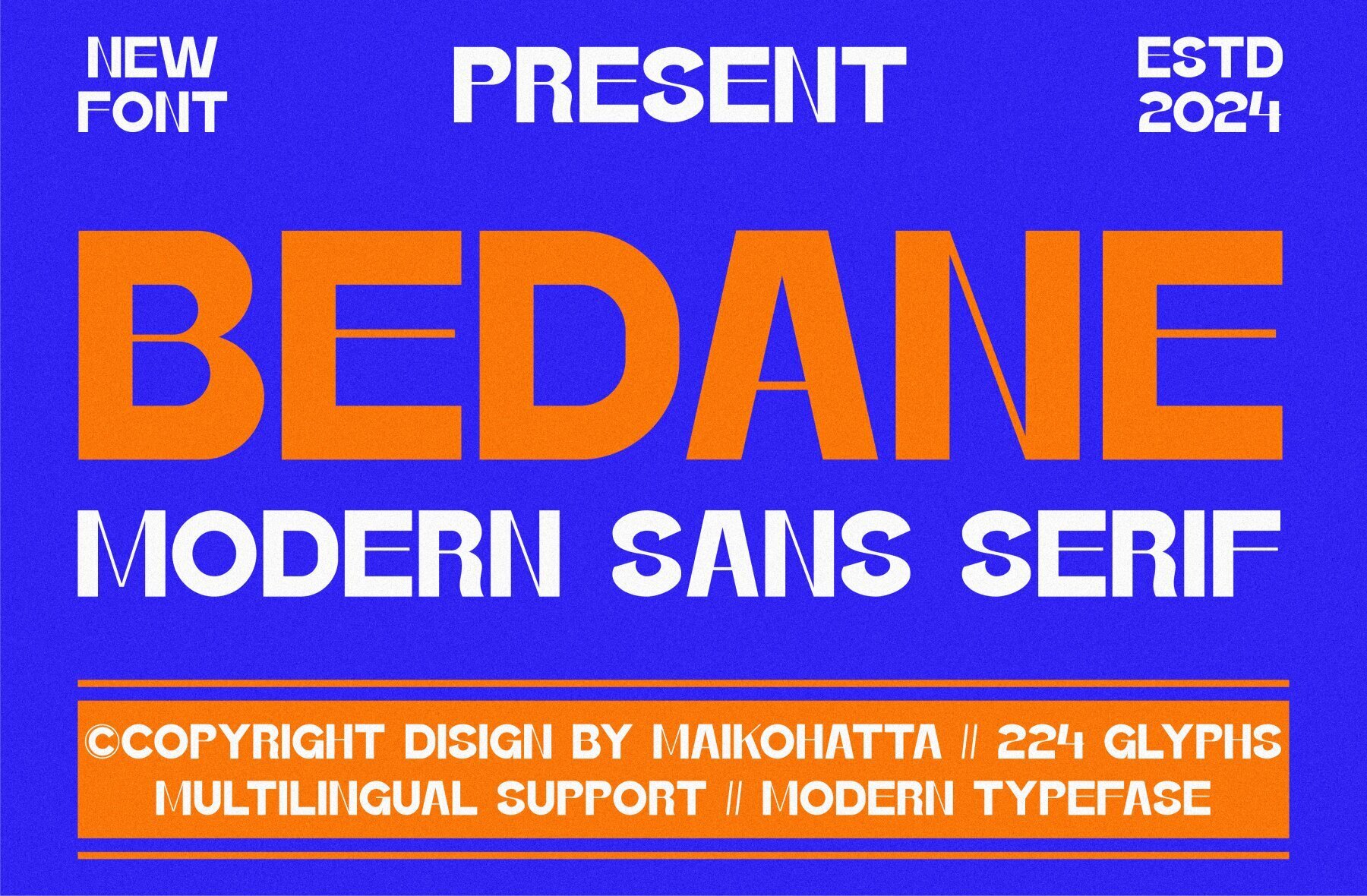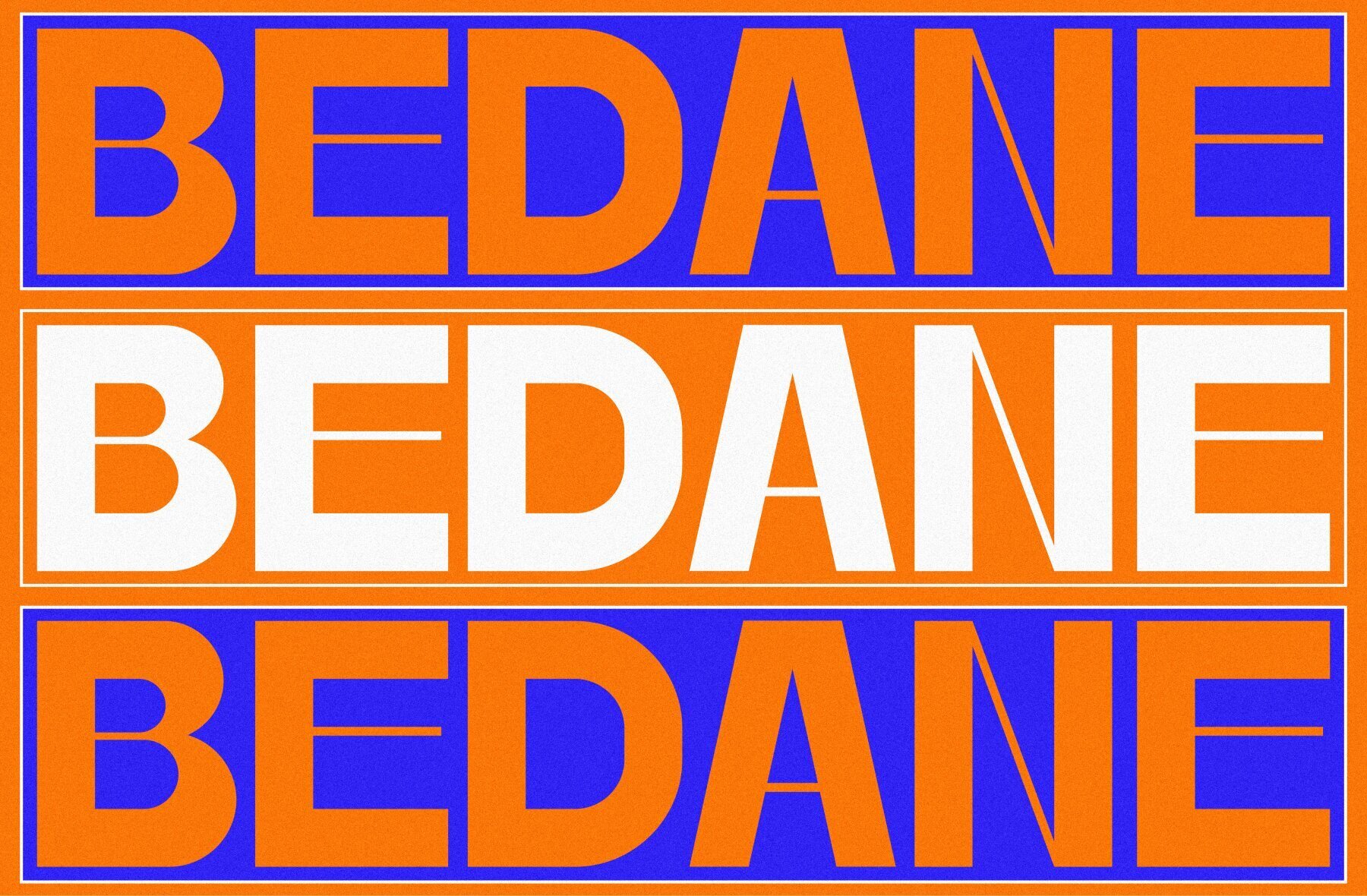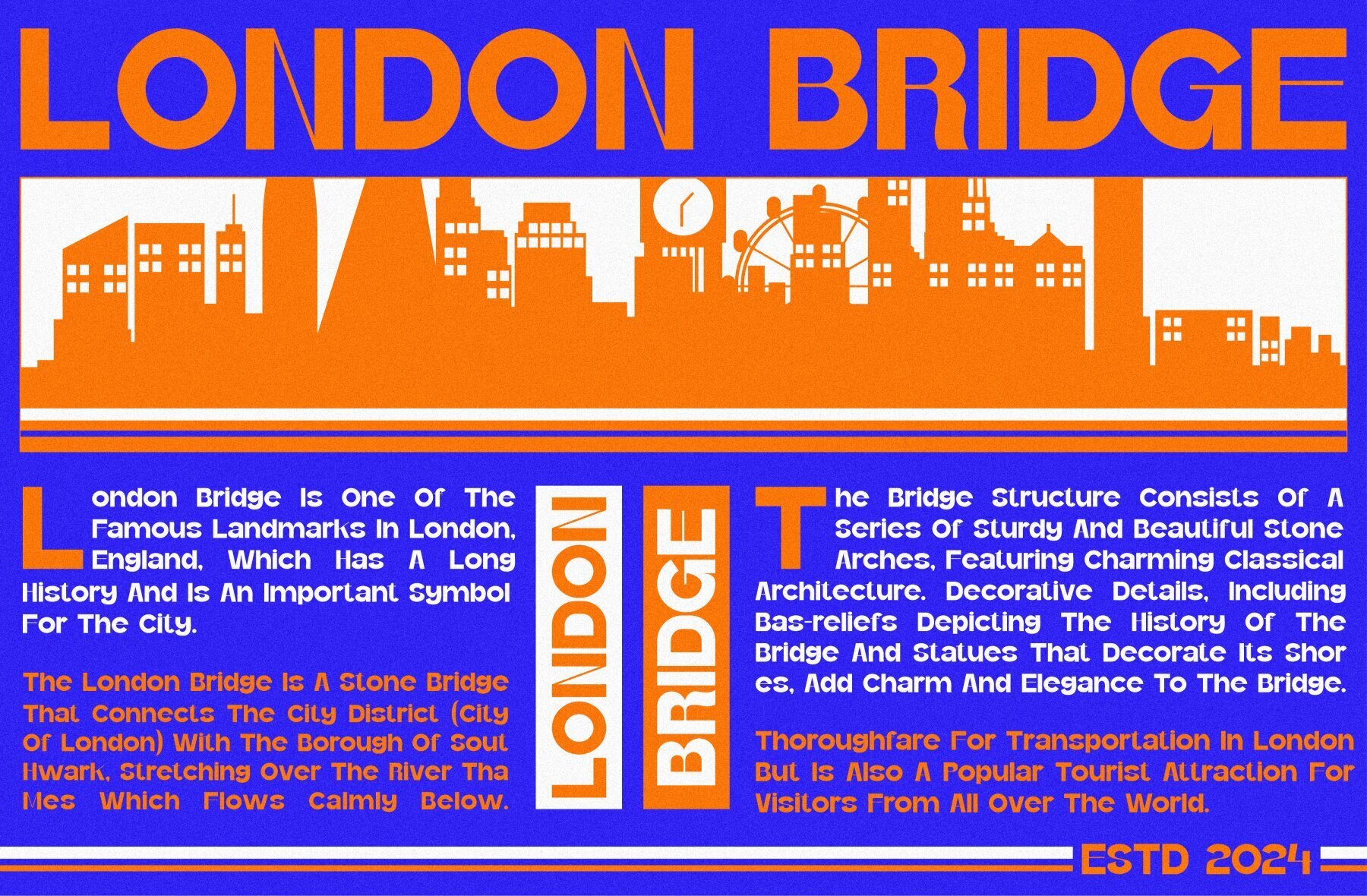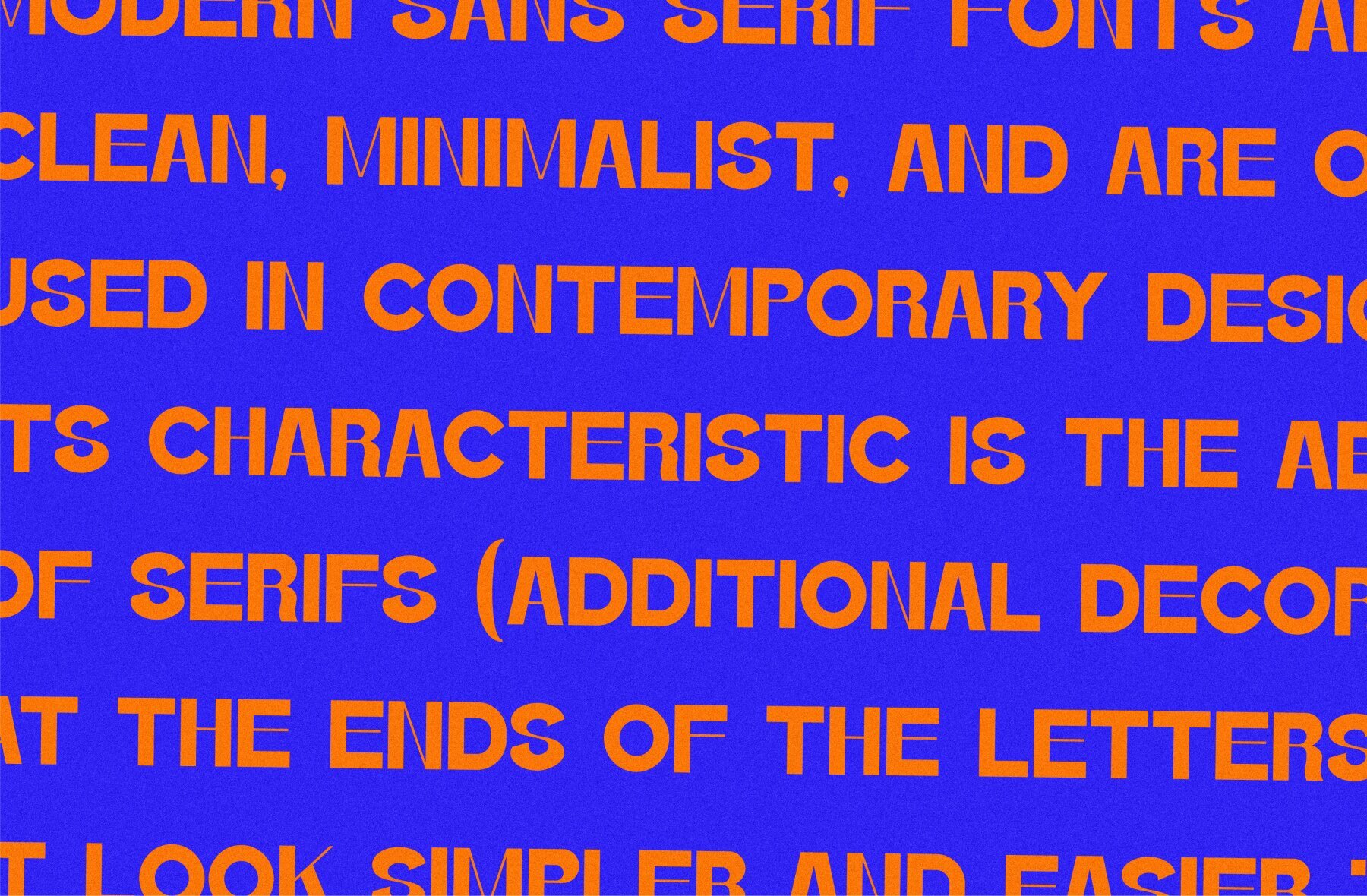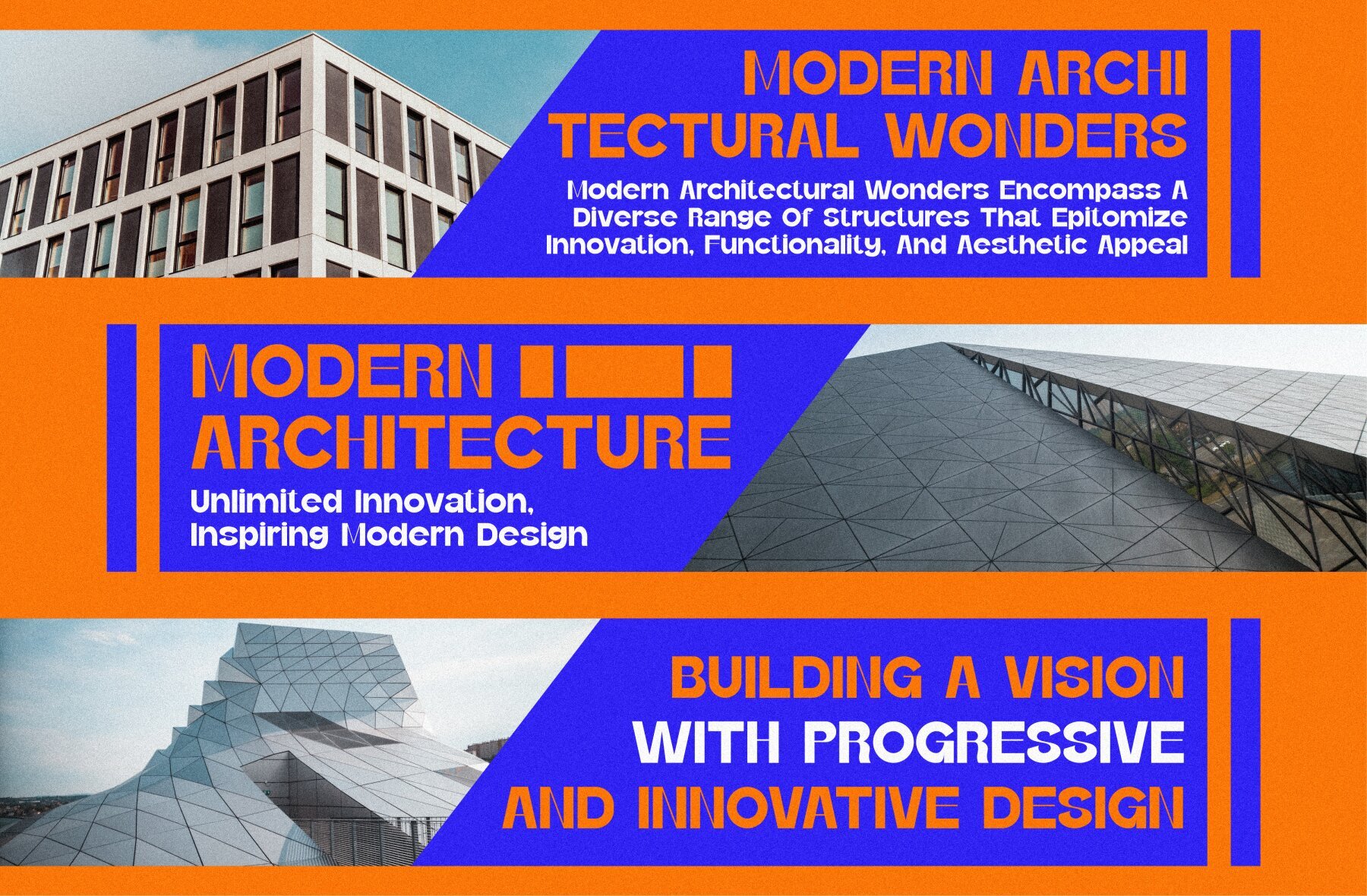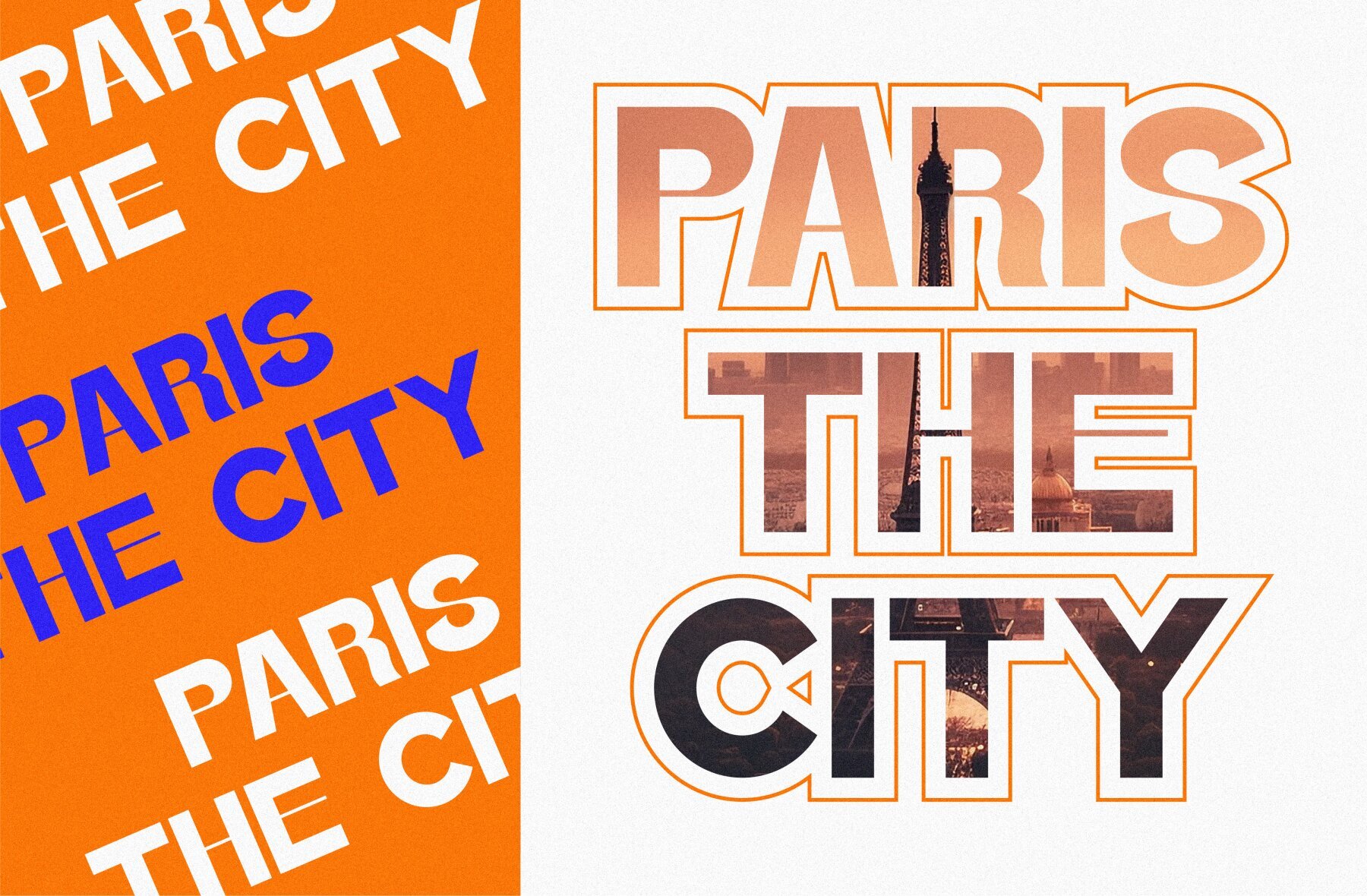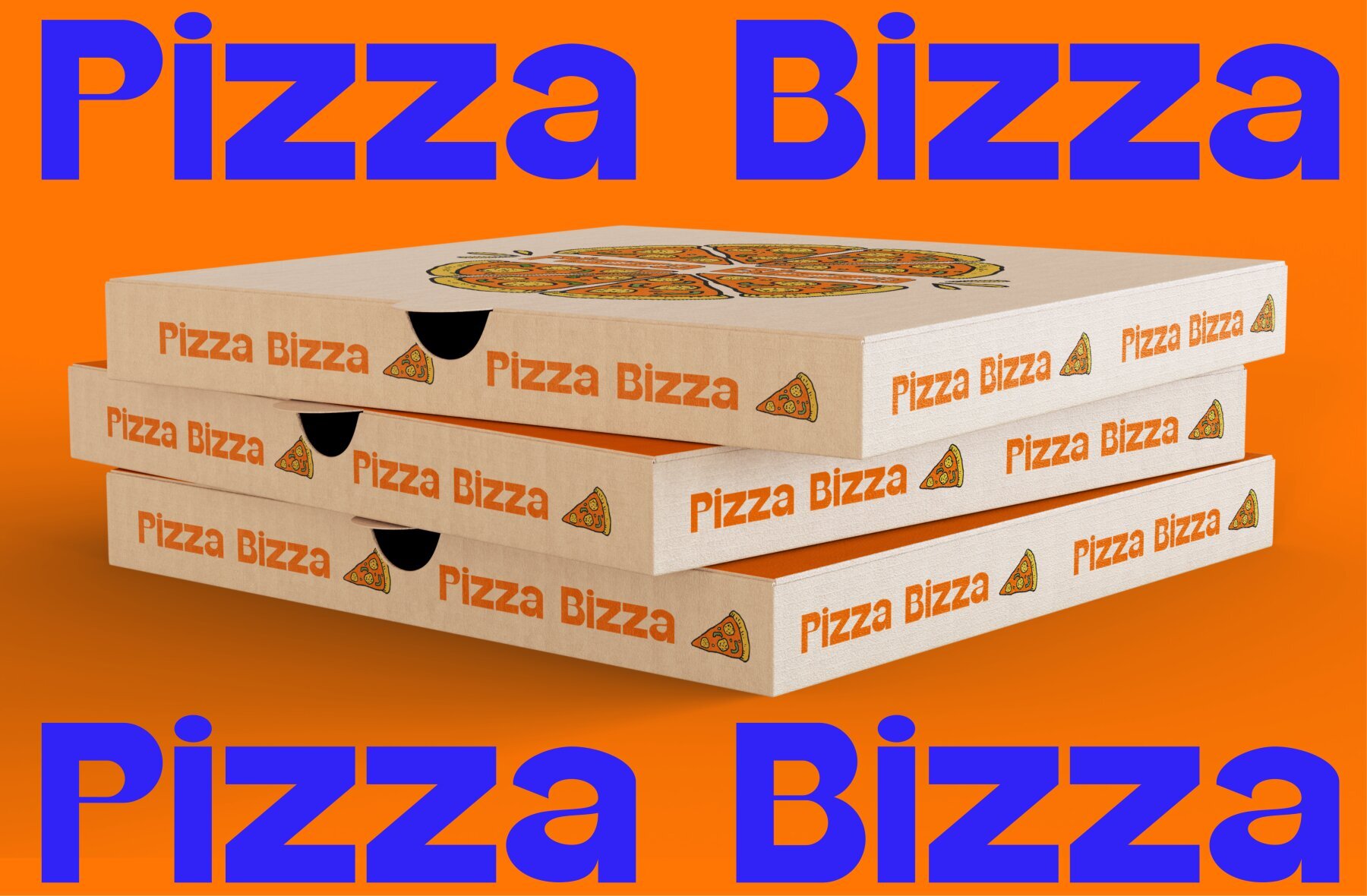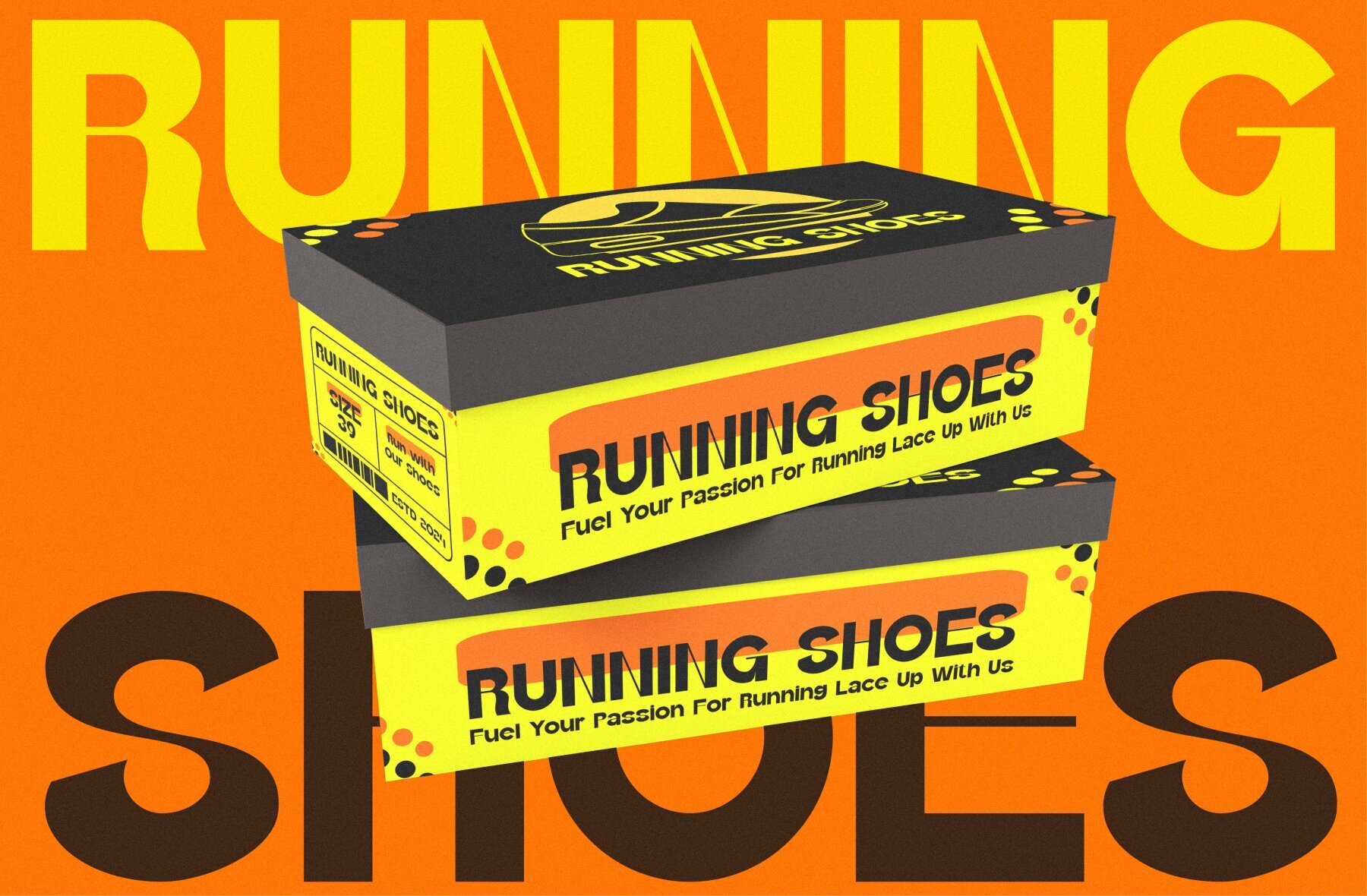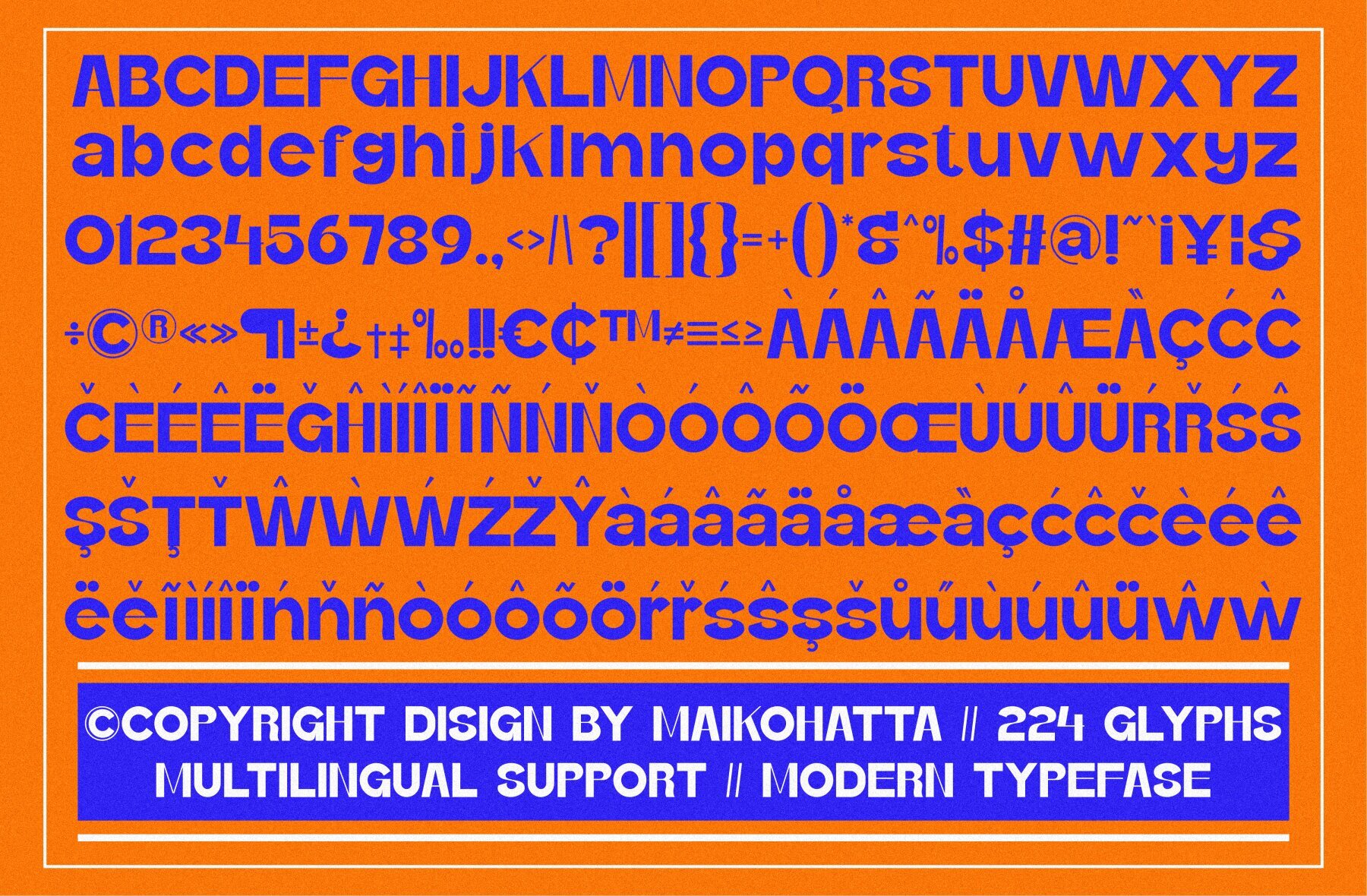
Bedane Font
Bedane Regular
Bedane is a bold and authentic modern sans serif display font. Ideal for branding projects such as logos, template designs, esports, and more, this font stands out across a wide range of applications.Bedane: A Modern Sans Serif Display Font